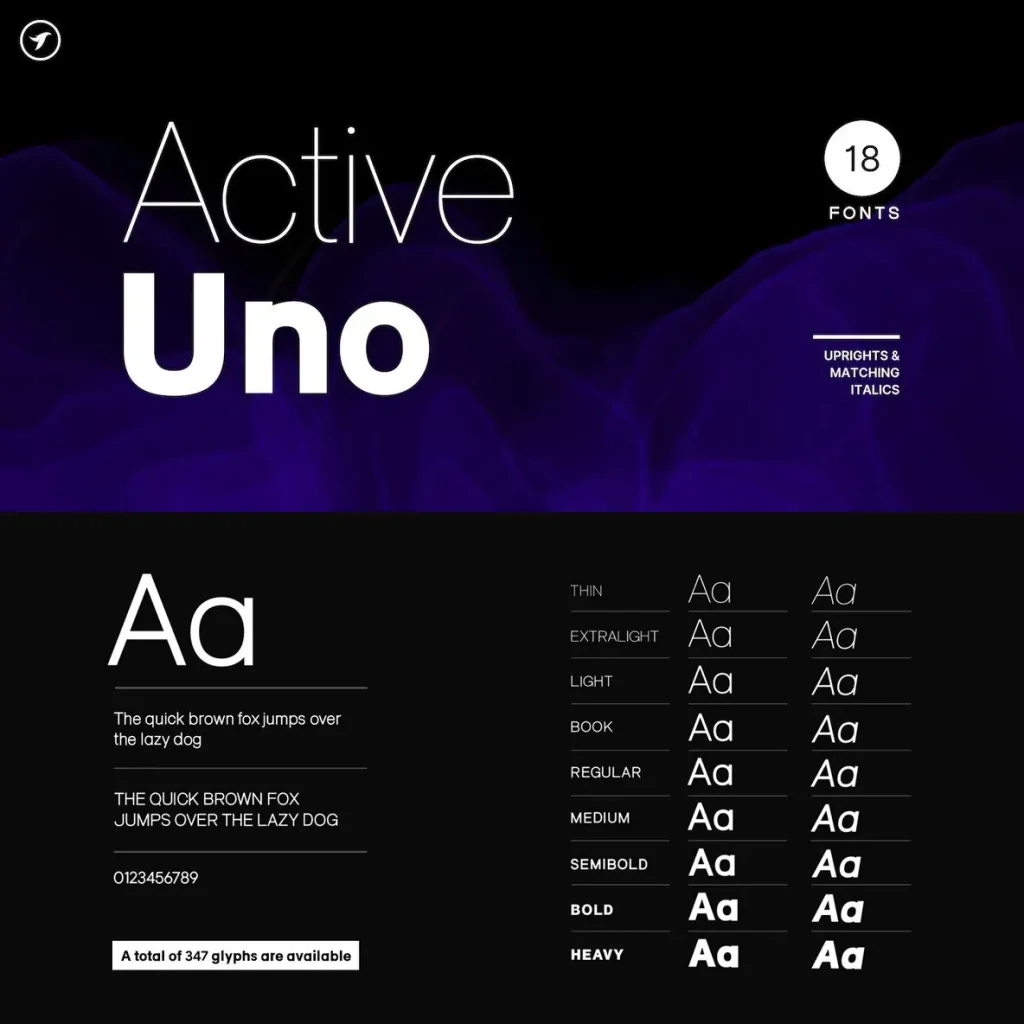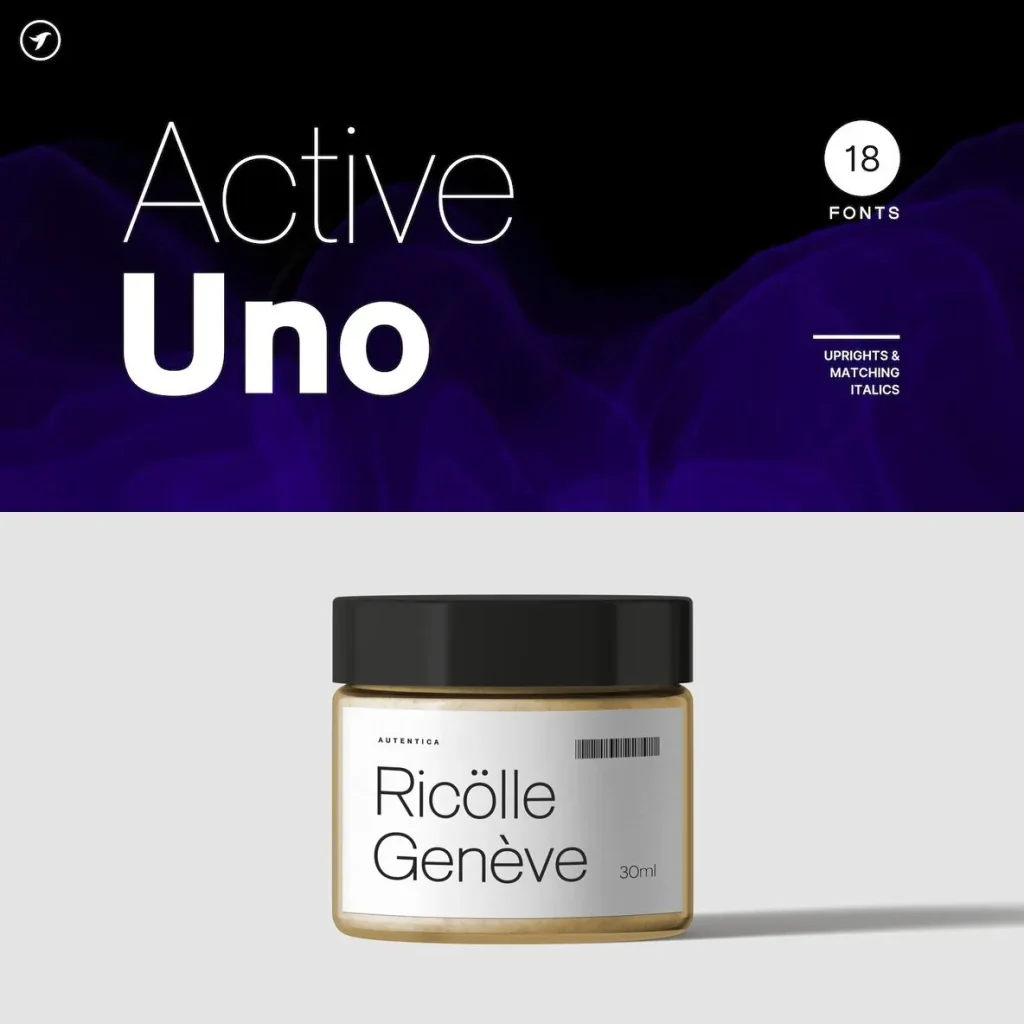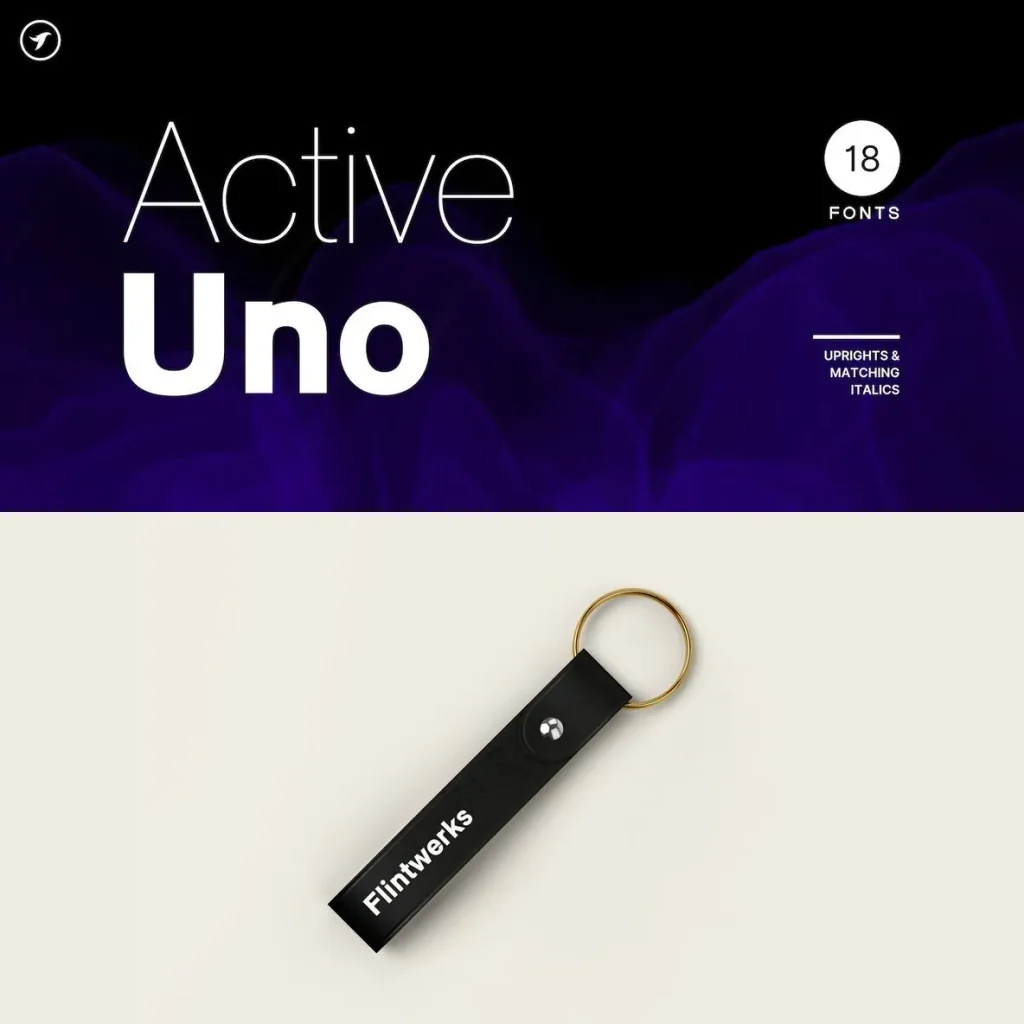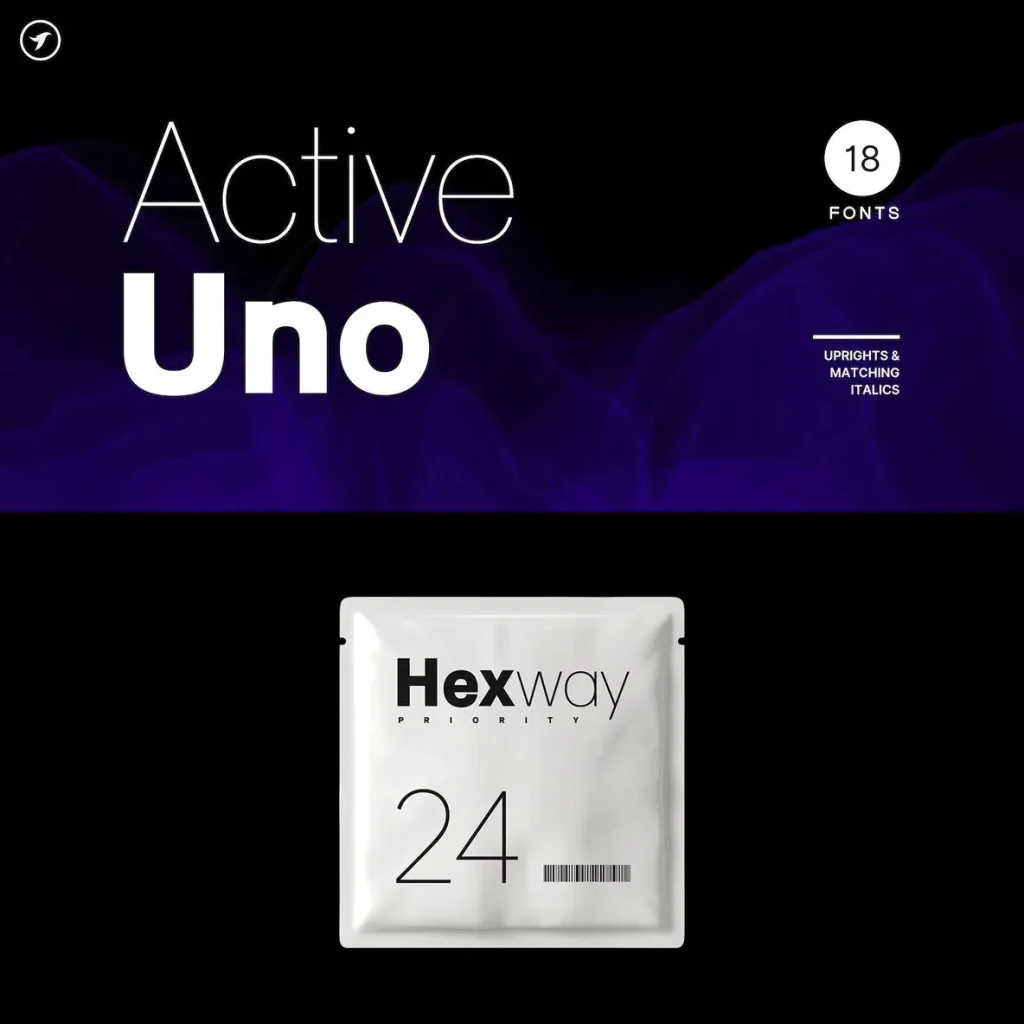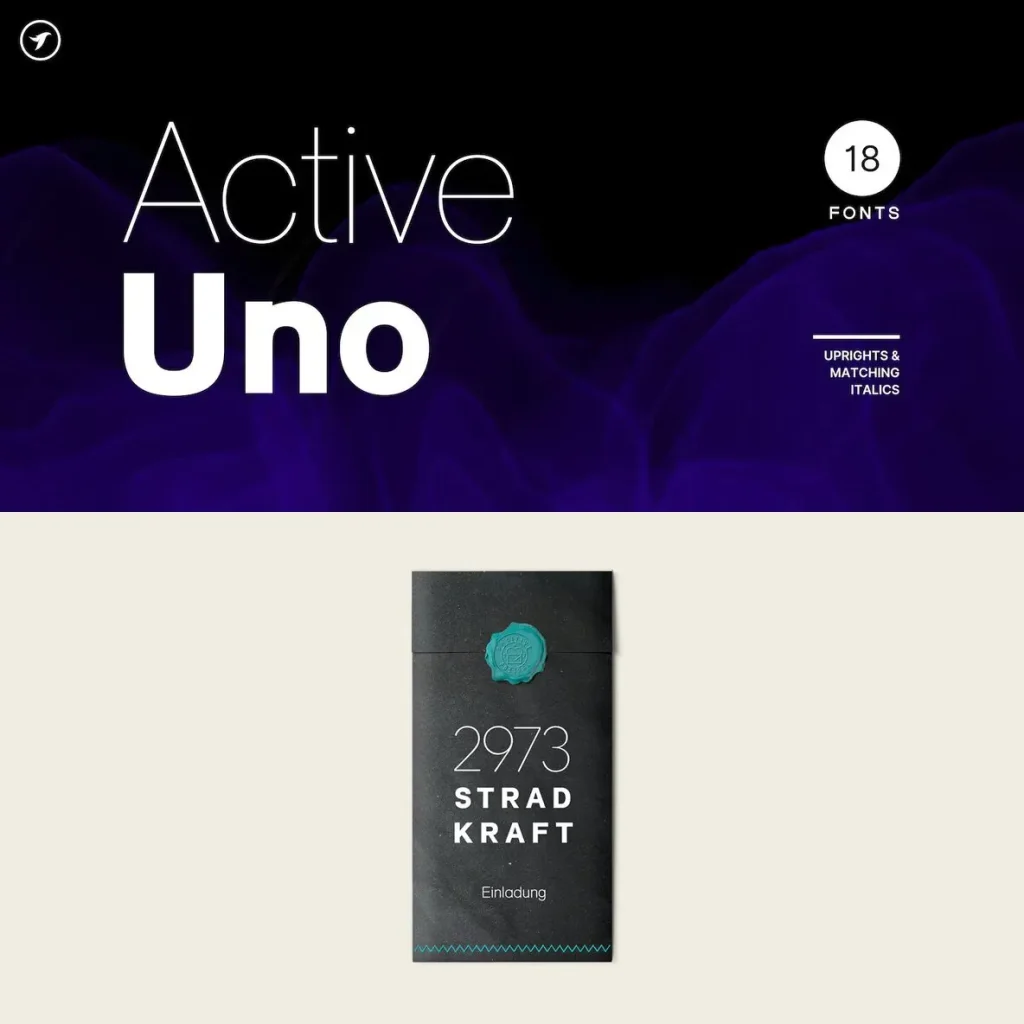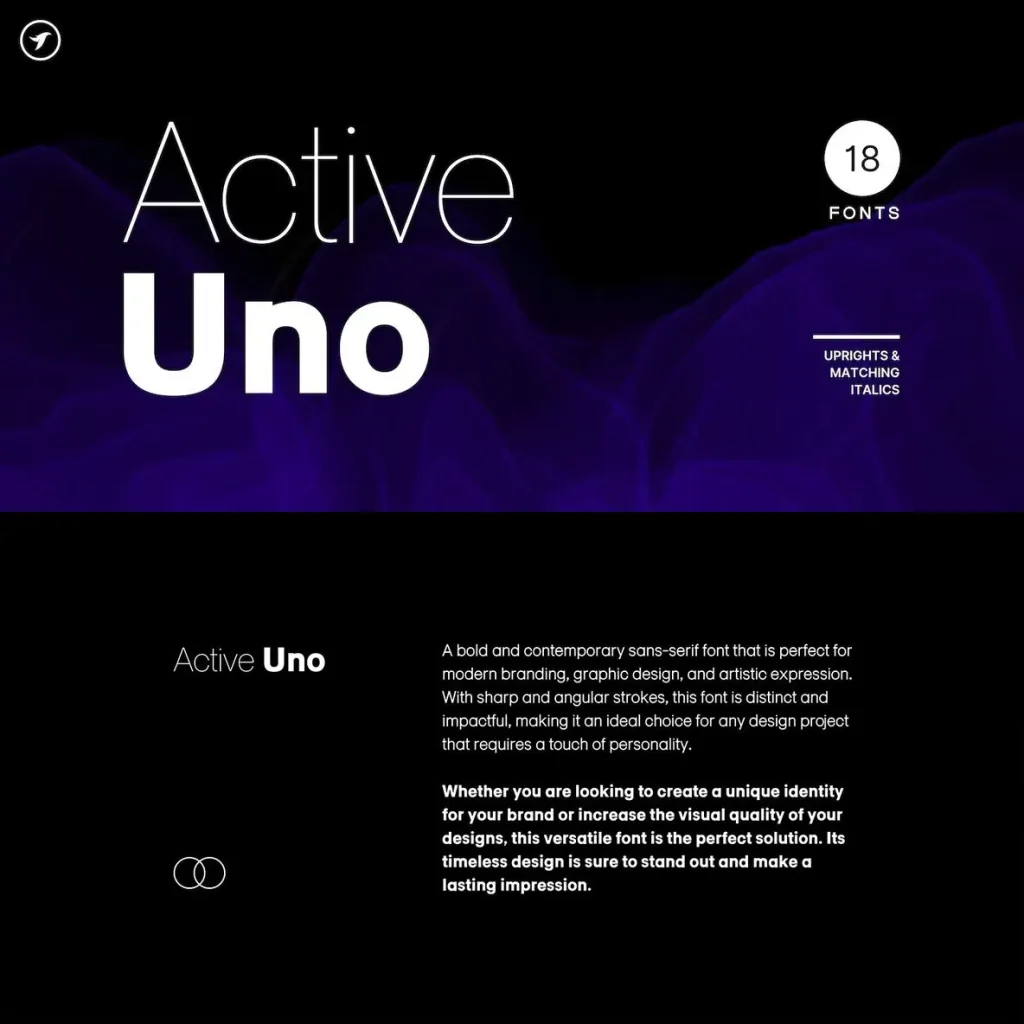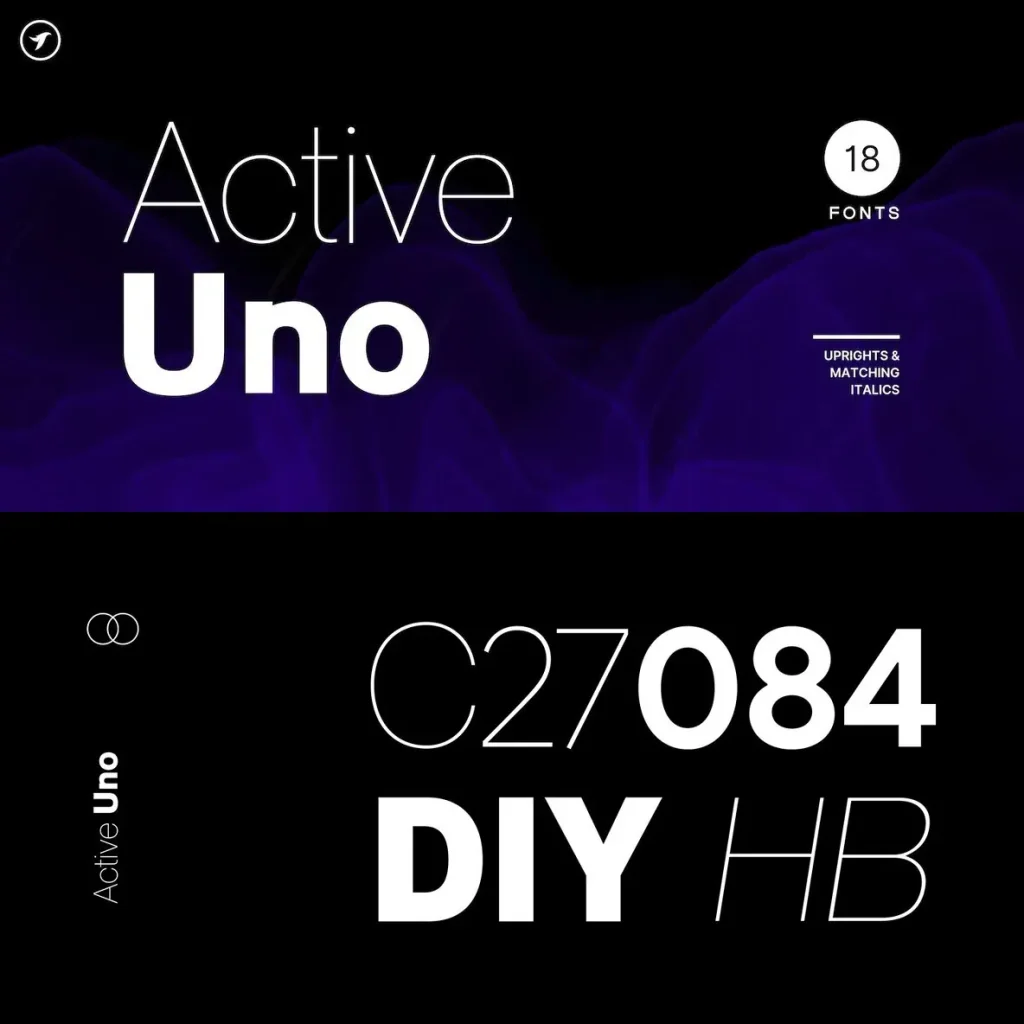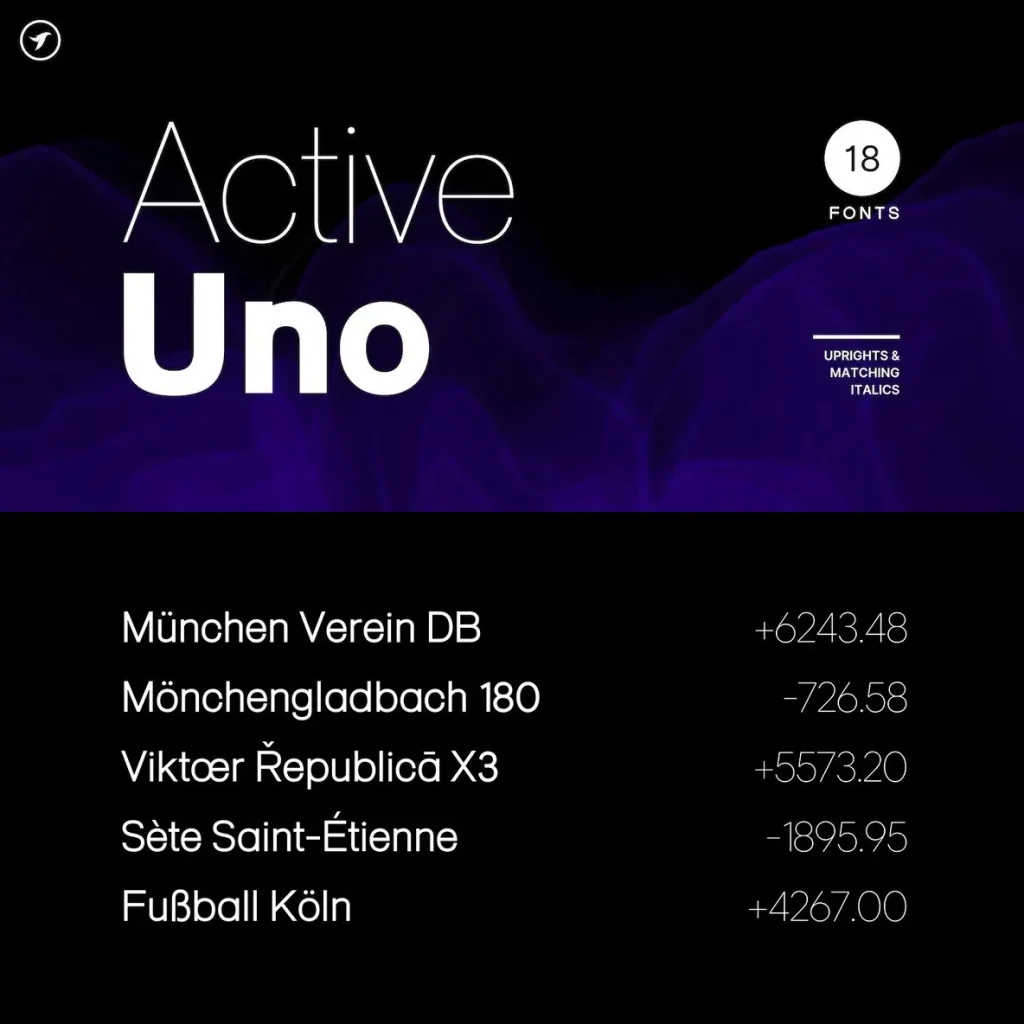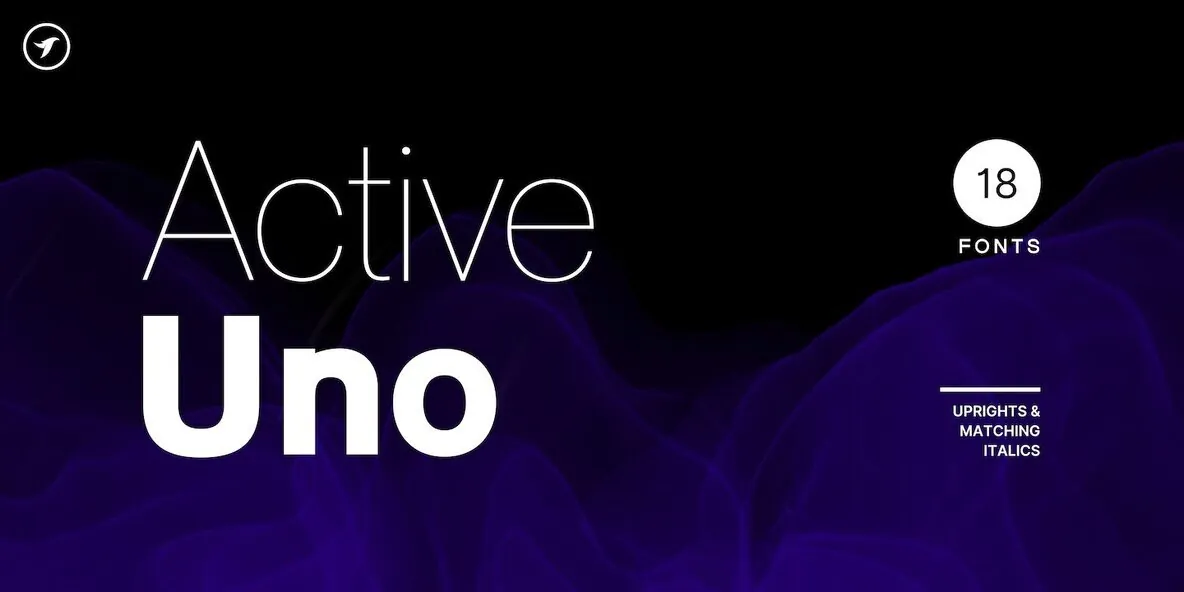
ACTIVE UNO — Clarity in Motion
ACTIVE UNO is a modern sans-serif typeface family built with precision, clarity, and timeless visual balance. Its clean forms and refined proportions give the family a disciplined, contemporary voice, suited to professional typography where structure and readability matter.
With a versatile design system, ACTIVE UNO provides a complete typographic solution for branding systems, editorial layouts, corporate identities, digital interfaces, and contemporary communication. It offers a clear, polished presence for designers who need a dependable sans-serif font family across print and digital work.